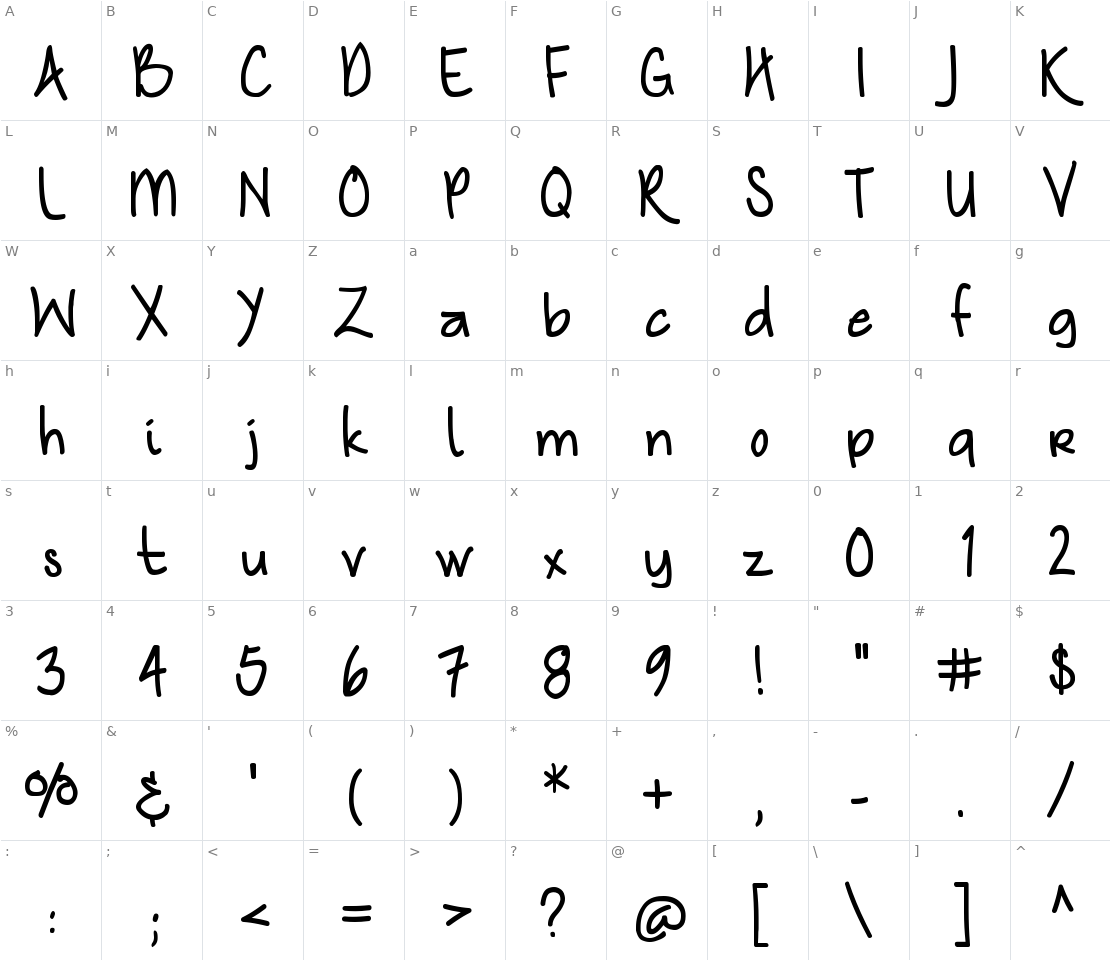
Nymphs Handwriting
Nymphs Handwriting is a casual, rounded handwritten face by Lauren Thompson that reads like someone's relaxed everyday penmanship. The letterforms are friendly and natural, with soft curves and an unforced rhythm that keeps things feeling personal rather than performed. A good fit for journals, greeting cards, personal blogs, or any context where you want type that feels like it was written just for you.